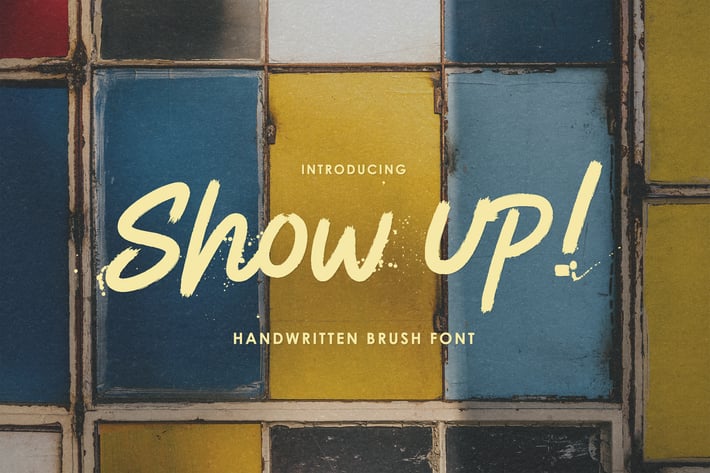
Show Up! – Handwritten Brush Font
Show Up! is a handwritten display font. It’s completely made by hand using a brush pen. Suited for party invitations, printed quotes, standout packaging, or beautiful designs! You can even use it to create amazing headings, logos, menus, and social media graphics.
– Lowercase
– Alternates
– Ligature
– Multilingual Support